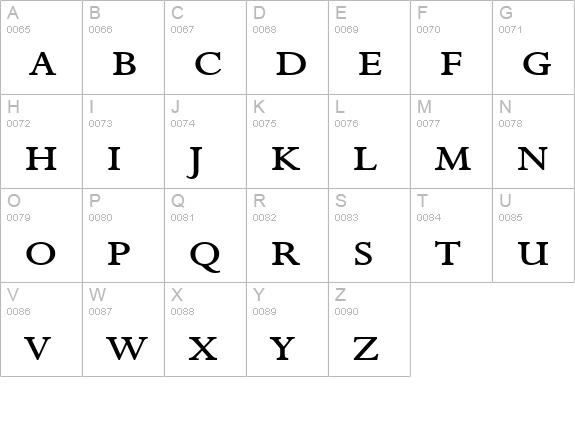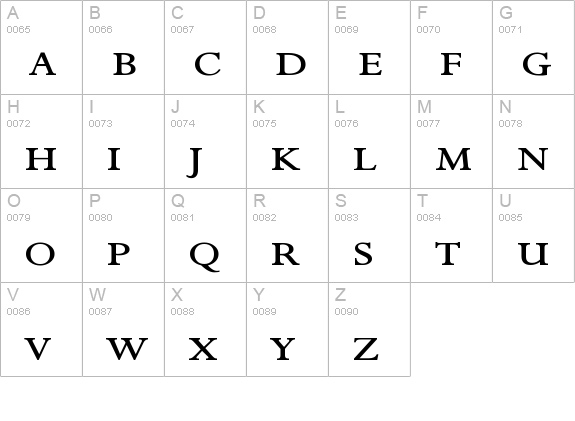
Rapid Wide Bold is a strong, high-contrast, extended-width variant in the Rapid typeface family \xE2\x80\x94 well suited to headlines, attention-grabbing titles, and strong calls-to-action.
Introducing Rapid Wide Bold font, a dynamic and eye-catching typeface that exudes confidence and modernity. With its bold and wide letterforms, this font commands attention and makes a powerful statement in any design project. Rapid Wide Bold is perfect for headlines, titles, and branding materials that require a strong and impactful presence. Its clean lines and sharp edges give it a contemporary feel, making it suitable for a wide range of applications, from posters and advertisements to website headers and packaging designs. This font's versatility is further enhanced by its ability to adapt to various design styles and themes. Whether you're going for a sleek and minimalistic look or a bold and vibrant aesthetic, Rapid Wide Bold can effortlessly elevate your design and convey your intended message with clarity and impact. But what makes Rapid Wide Bold even more remarkable is that it is available for free! Yes, you read that right. You can download this amazing font for absolutely no cost at FontsMarket.com. This means you can enhance your creative projects without breaking the bank. So don't miss out on this incredible opportunity to add Rapid Wide Bold to your font collection. Download it now for free at FontsMarket.com and unlock a world of possibilities for your designs. Whether you're a professional designer or just starting out, Rapid Wide Bold is a must-have font that will elevate your work to new heights.